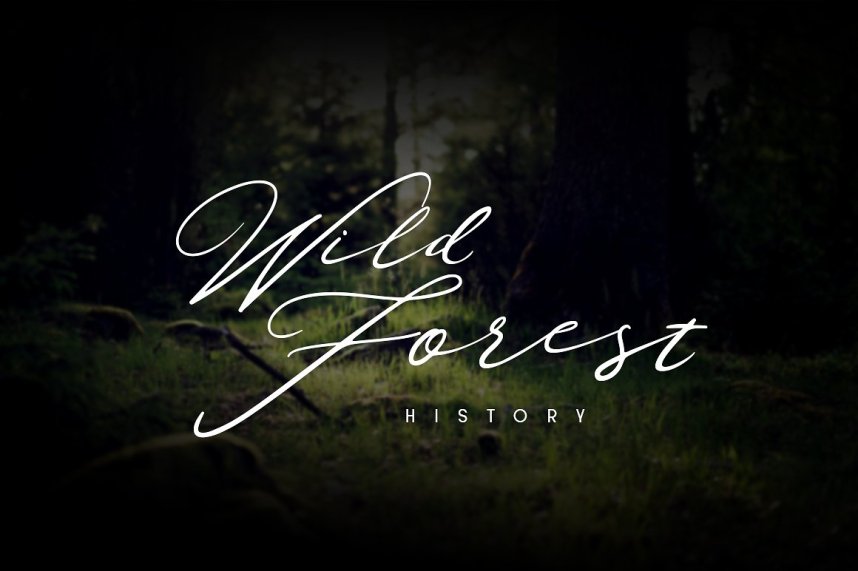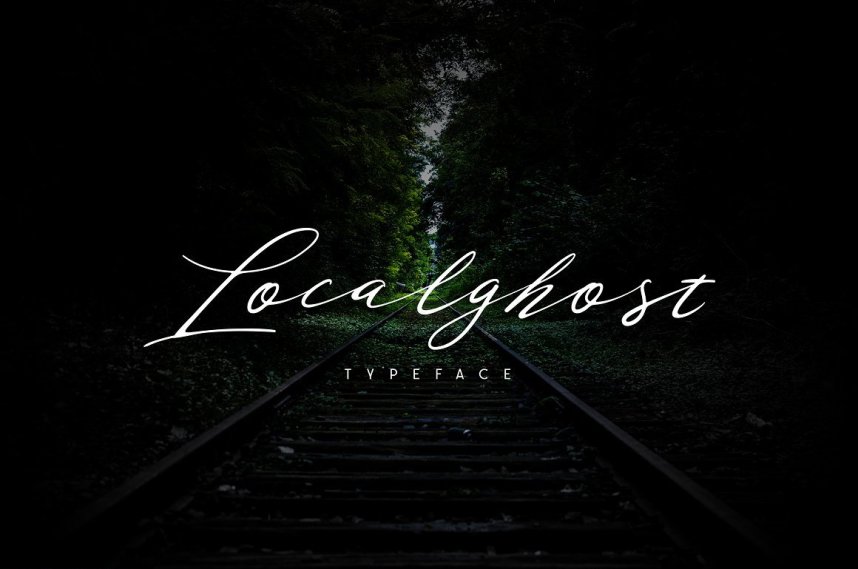
Localghost Script Font
Hello Guys! Thank you for looking Localghost Typeface. This font can be used at any time and any project. You can see in the presentation picture above, how it’s works! Localghost design and shared by alit design. Localghost using style signature lettering script. So, this font can give a different touch to all your design projects e.g. watermark, quotes, logotype, poster design, personal branding, lettering, photography needs, blog header, wedding, letter, invitation, stationery,etc.